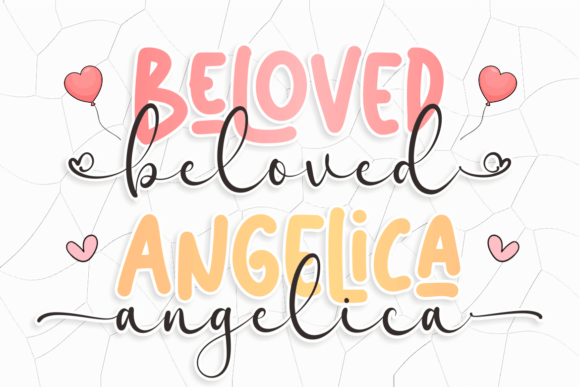
Introducing Beloved Angelica Font, the perfect font for your next creative project! Created by jinanstd, this lovely and stylish duo font (script and sans serif) is exactly what you need to add a touch of romance to your designs. Whether you're working on a Valentine's Day theme or simply want to infuse your creations with love, Beloved Angelica has got you covered!
With its intricate details and impeccable craftsmanship, this font is guaranteed to captivate your audience. Its script and sans serif variations offer versatility and endless possibilities for your design endeavors. From heartfelt quotes to elegant invitations, Beloved Angelica will transform your work into a masterpiece.
But what sets this font apart from the rest? Well, let us tell you! Beloved Angelica is PUA encoded, which means you have easy access to all the unique glyphs and swashes it offers. Say goodbye to tedious searching and hello to effortless creativity. With just a few clicks, you can unlock a world of beautiful embellishments that will elevate your designs to new heights.
Whether you're a seasoned designer or just starting out, Beloved Angelica is user-friendly and compatible with various design software. Its seamless integration ensures a smooth and hassle-free experience, allowing you to focus on what you do best – creating stunning visuals that leave a lasting impression.
Transform your Valentine's Day projects, wedding invitations, branding materials, and more with this extraordinary font. Don't settle for ordinary – make your designs extraordinary with Beloved Angelica Font today!